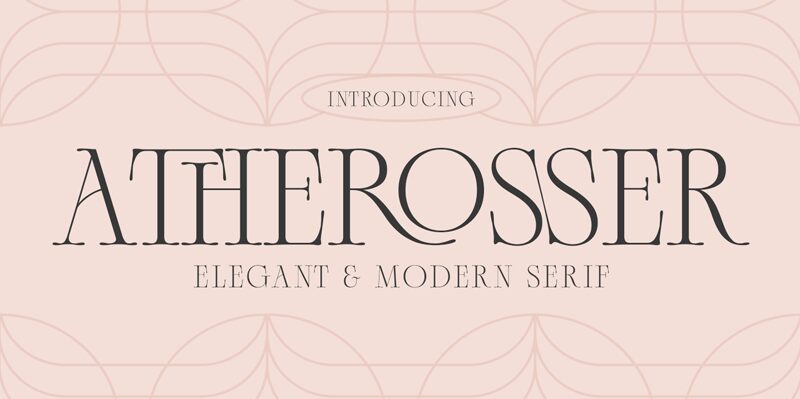
ATHEROSSER
Atherosser font by Moka Type Studio is a serif typeface inspired by classic elegance. The condensed font has each letter set as if they are cut out from a long royal piece of paper. Its sophisticated appearance can make it timeless and can give any project that refined touch regardless of the colors or sizes used.